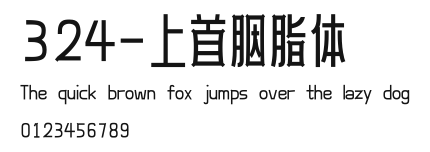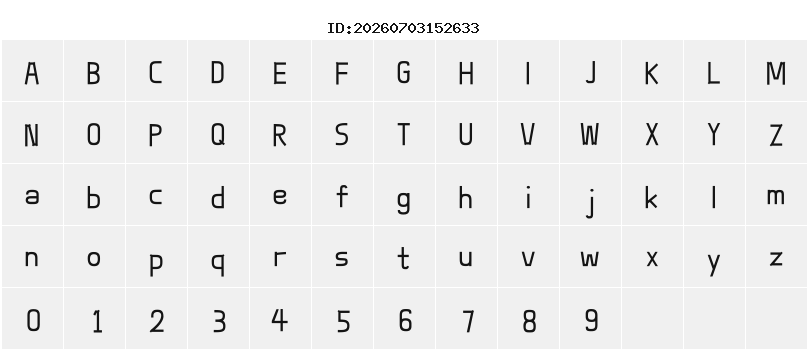
• Font Name: 324-上首胭脂体
• Font ID: 324-SS Yan Zhi Ti:Version 6.00
• Full Font Name: 324-上首胭脂体
• Version: Version 6.00 May 13, 2024
• PostScript Name: 324-SSYanZhiTi
• Character Count: 7569
• Manufacturer: 上首造字
About 324-上首胭脂体.ttf
324-上首胭脂体.ttf is a modern, elegant sans-serif font designed for ultimate readability and visual harmony. Perfect for branding, headlines, web design, and print materials.